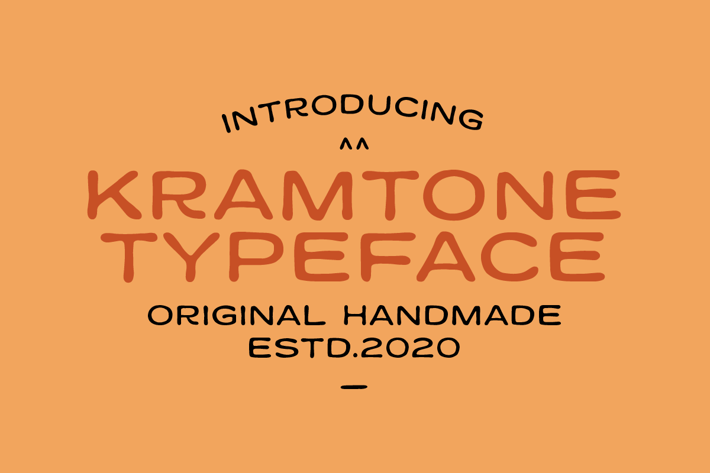
Kramtone Typeface
MartypeCo
Kramtone is a handmade typeface inspired by handmade lettering this, typeface is ready to use and suitable rush design like for Modern design, cover book, poster, flyer etc.
Kramtone Regular
Kramtone Slant